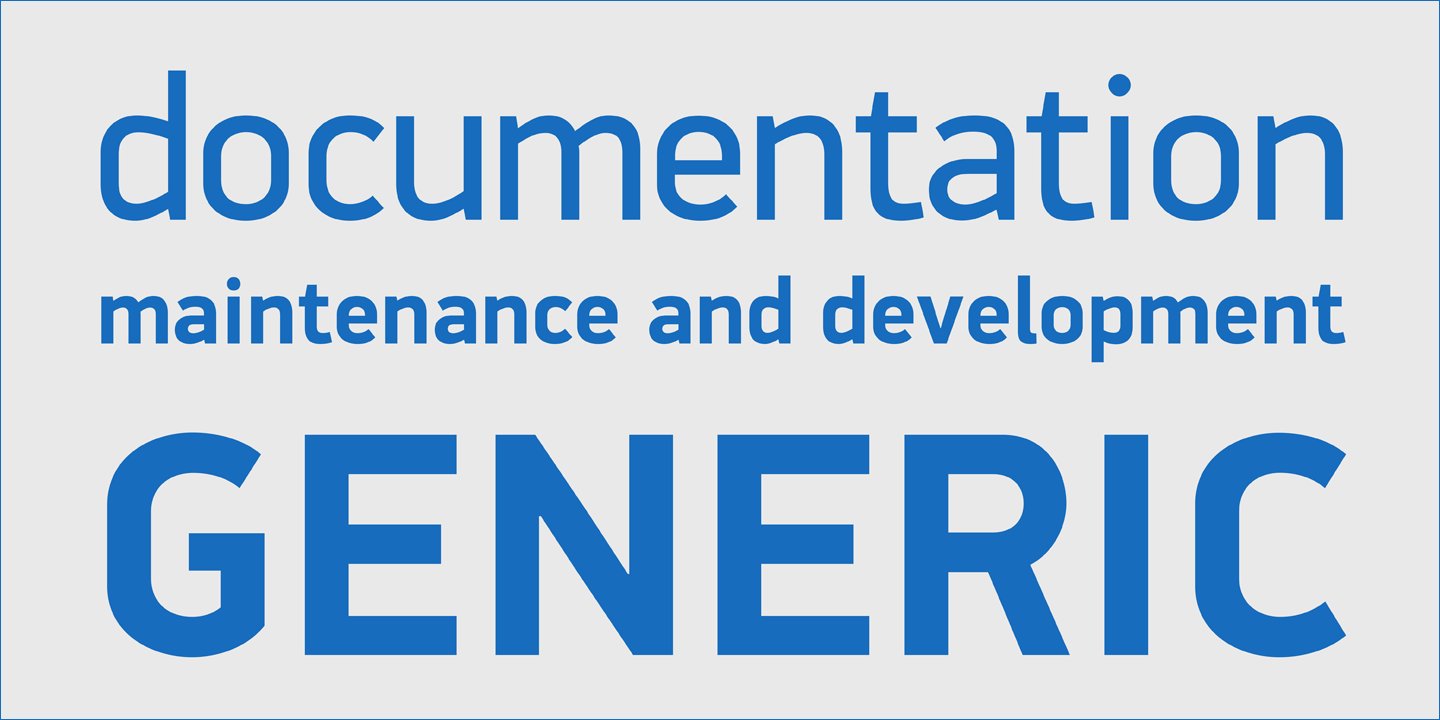
The PF DIN Display Pro Font is perfect for industrial design projects including automotive branding, engineering presentations, manufacturing company identities, technical product packaging, industrial signage systems, machinery documentation, architectural displays, and precision equipment marketing. This robust typeface brings German engineering precision and industrial strength to any design project requiring authoritative, technical typography with systematic clarity and professional reliability.
What makes PF DIN Display Pro Font so exciting is its exceptional embodiment of German DIN standards with engineered letterforms that capture the essence of precision manufacturing and systematic technical excellence. The letters feature industrial-grade proportions with mechanical accuracy that creates an immediate sense of reliability and engineering authority. This distinctive industrial character makes it perfect for brands and projects that want to communicate technical precision, manufacturing quality, and the dependable appeal of German engineering traditions.
The PF DIN Display Pro Font family typically includes comprehensive weight ranges from light to black, complete with condensed variations and extensive character sets. Many versions feature technical symbols, engineering glyphs, and industrial design elements that enhance its functionality for manufacturing and technical applications.
Whether you're designing for automotive companies, engineering firms, or industrial manufacturers, PF DIN Display Pro Font Free Download offers the perfect solution for projects that need to convey technical authority and industrial precision. This font transforms standard technical communications into authoritative designs that immediately communicate engineering excellence, manufacturing reliability, and the systematic precision of German industrial design to professional audiences requiring dependable technical solutions.